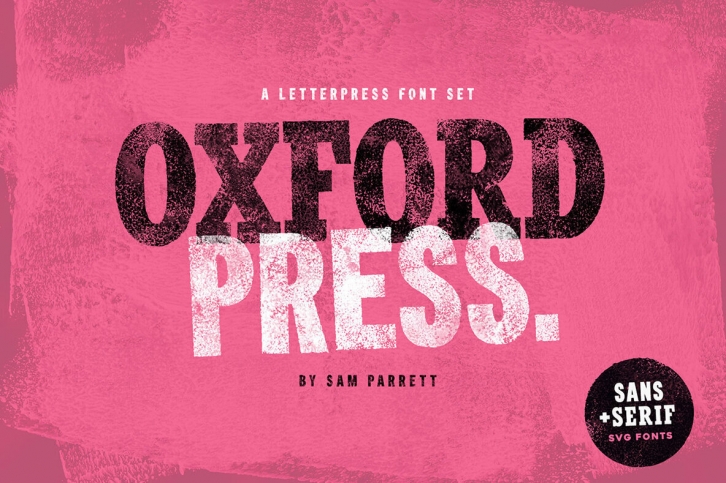
Recreate authentic letterpress typography with Oxford Press, a set of 6 Serif & Sans fonts designed using real vintage metal letterpress blocks sourced from old printing companies. Oxford Press uses Opentype-SVG font technology to apply highly realistic pressed-ink textures built into each letter as a transparency. It includes both a Serif and Sans Serif style, and a full set of alternate characters for each font with a different texture applied.